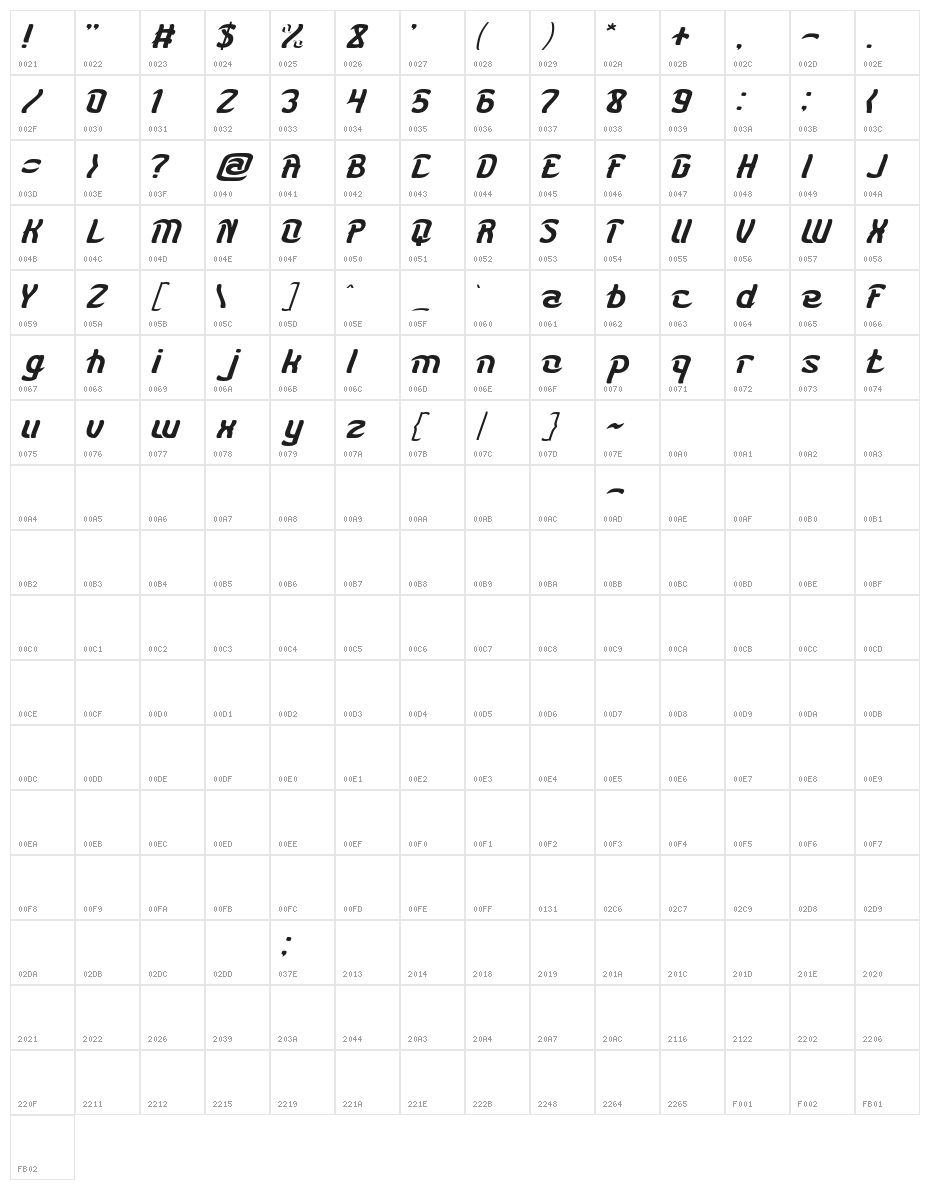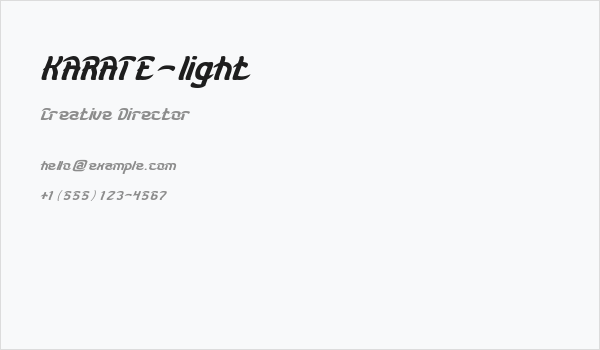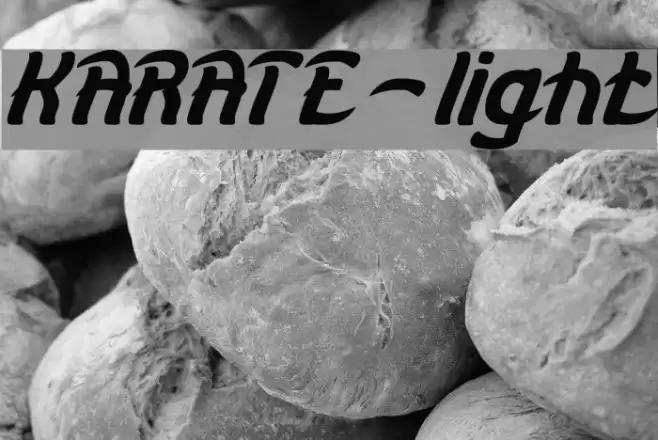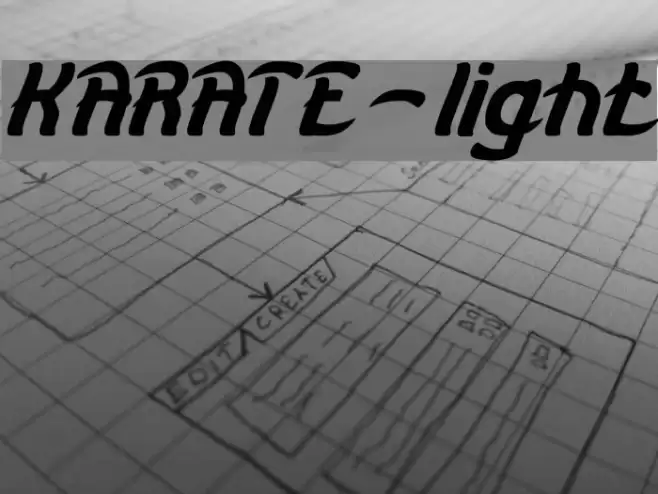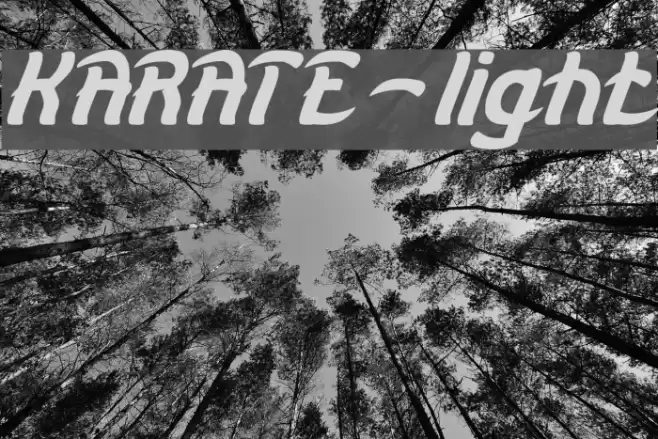
KARATE-light Font
This font features a bold, dynamic style with a strong sense of movement and energy. The characters are slightly slanted, giving a sense of forward motion, and the strokes are thick and consistent, providing a robust appearance. The design is reminiscent of brush strokes, with rounded edges and smooth curves that add a touch of fluidity. The uppercase and lowercase letters maintain a cohesive look, while the numerals and special characters complement the overall aesthetic. This font is ideal for creating a striking visual impact.
| Proposed Projects | Perfect for sports branding, dynamic posters, and energetic event promotions. |